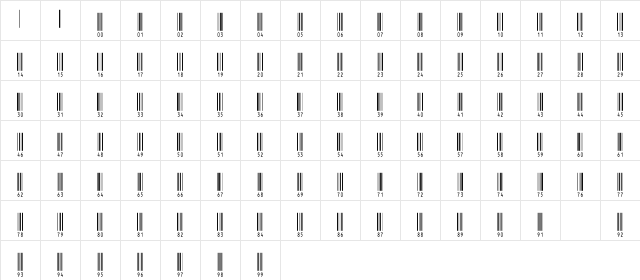
IntHrP48DmTt Normal
Design Context for IntHrP48DmTt Typeface
IntHrP48DmTt takes a measured approach to typography — its balanced proportions and neutral character make it a reliable workhorse for both digital and print work.